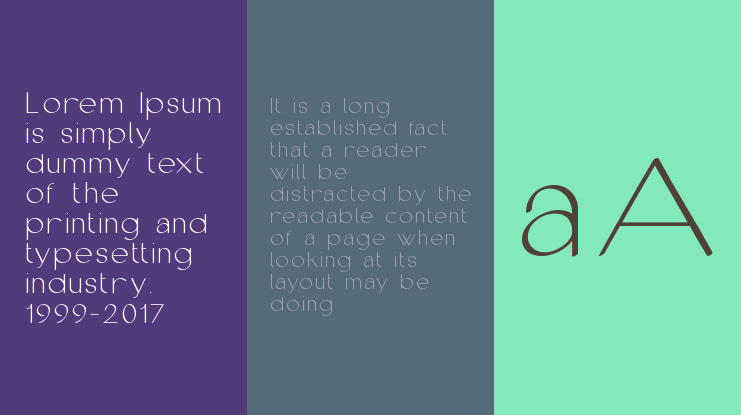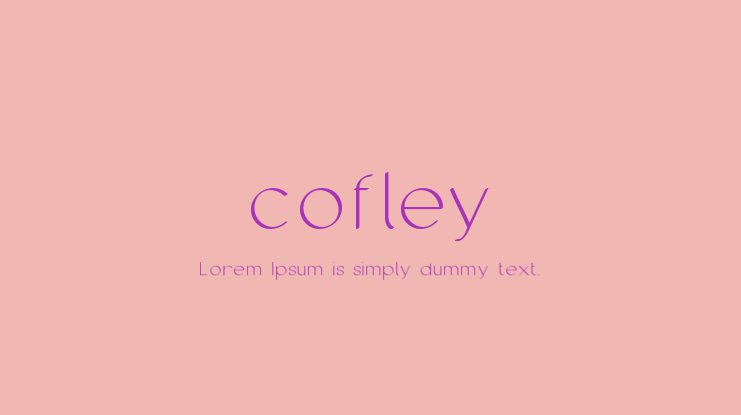
cofley Font Family
cofley modern rounded sans serif in 4 style familly. free for personal use. For comercial purposes and more style please email me or go to https://www.myfonts.com/fonts/gittype/cofley/